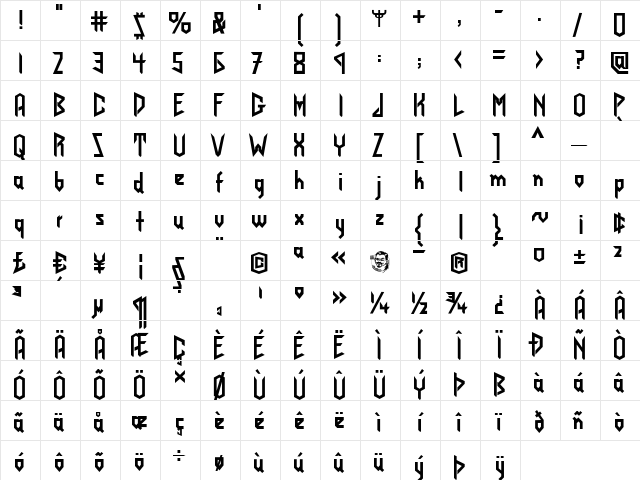
JudasPriest Regular
Design Context for JudasPriest Typeface
JudasPriest is a composed and adaptable typeface that performs quietly and consistently across a wide range of design contexts.